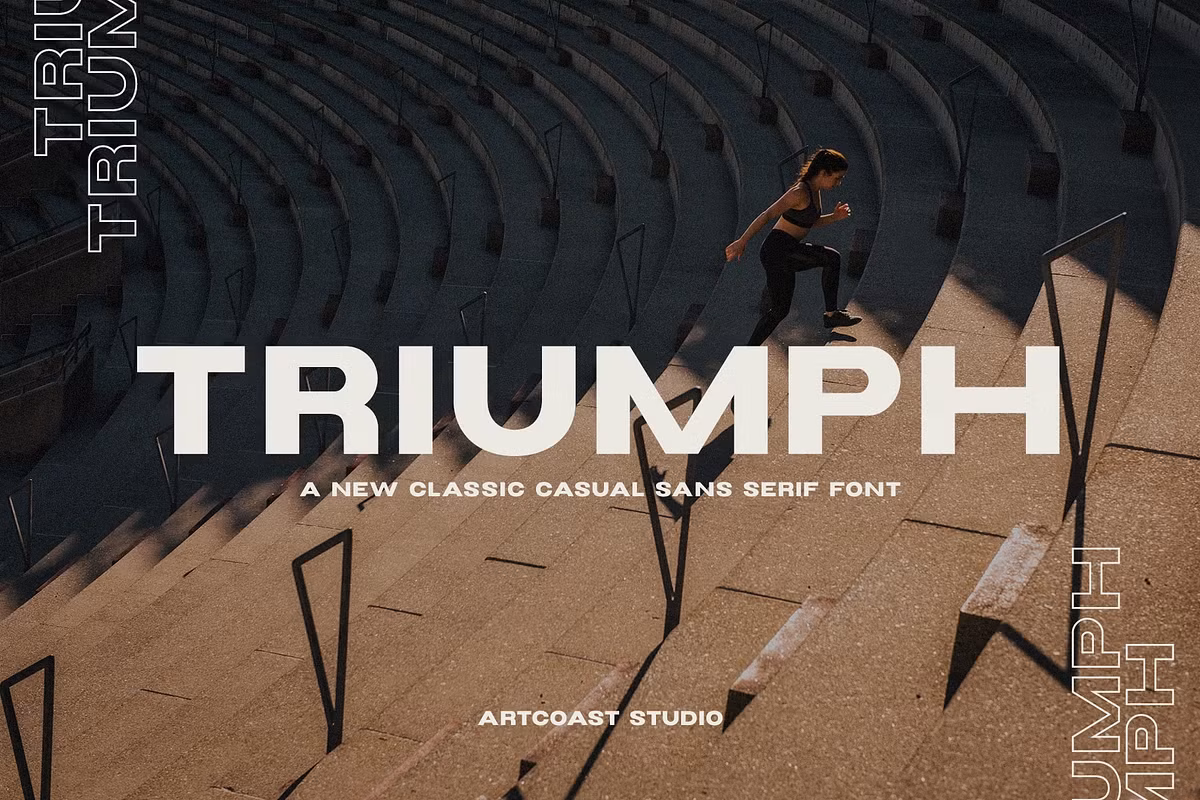
Triumph Wide Font Free Download is a bold and modern typeface that commands attention with its extended letterforms and strong presence. Designed for impactful headlines, branding, posters, and sports-related graphics, this font delivers power and style in every letter. Its wide spacing and clean lines make it ideal for designs that need to stand out with confidence.
Whether you’re creating a logo for an athletic brand, a bold social media banner, or eye-catching packaging, Triumph Wide offers a dynamic and versatile solution. It pairs well with minimalist design elements, allowing your message to shine through with clarity and strength.